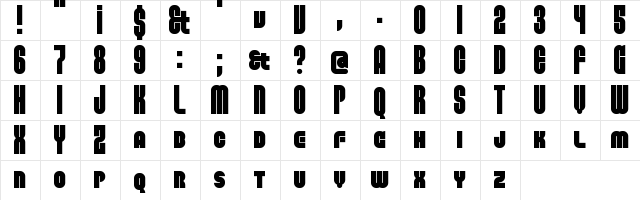
Power-Up Regular
| Designer | aphoria |
Design Context for Power-Up Typeface
Power-Up has the bold swagger of sports branding: strong, assertive letterforms designed to dominate headlines and jerseys alike.
A natural choice for gym brands, fantasy sports, jersey lettering, and action-driven headlines.
Pro Tip: Use Power-Up in all-caps headlines where its athletic energy can fully express itself. Pair with a solid, simple sans for supporting text.